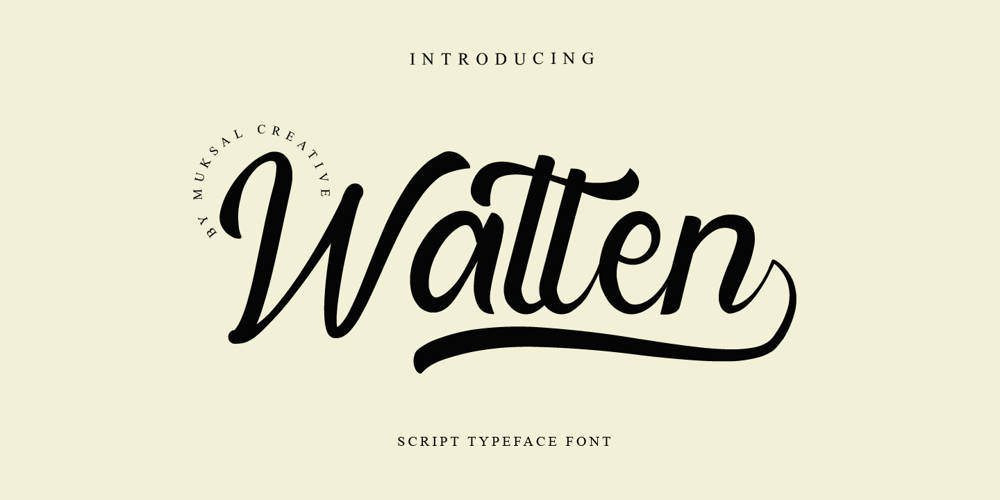
Watten
Watten font
Watten Font Family was designed by Muksalmina and published by Muksal Creatives. Watten contains 1 styles and family package options. Watten is a script with Handwritten Style. It is made with digital brush pen strokes that making this font look authentic. This font is perfect for fashion brands, wedding invitations, business cards, logos, signatures, calligraphy and more.